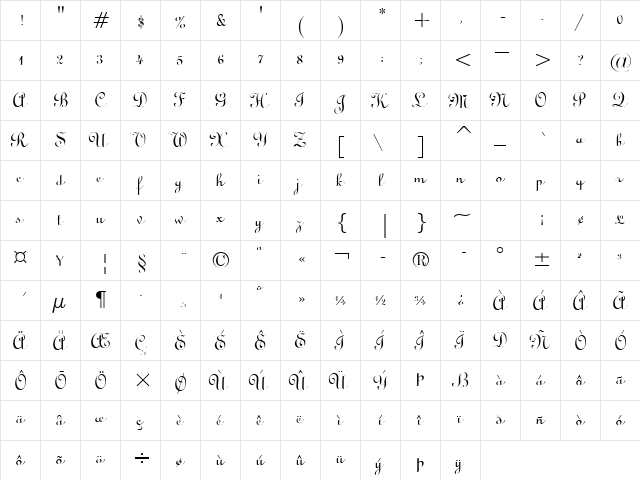
Uptype Normal
Design Context for Uptype Typeface
Uptype is a composed and adaptable typeface that performs quietly and consistently across a wide range of design contexts.
Pro Tip: Use Uptype in both headline and body roles to test its range before committing to a single application.